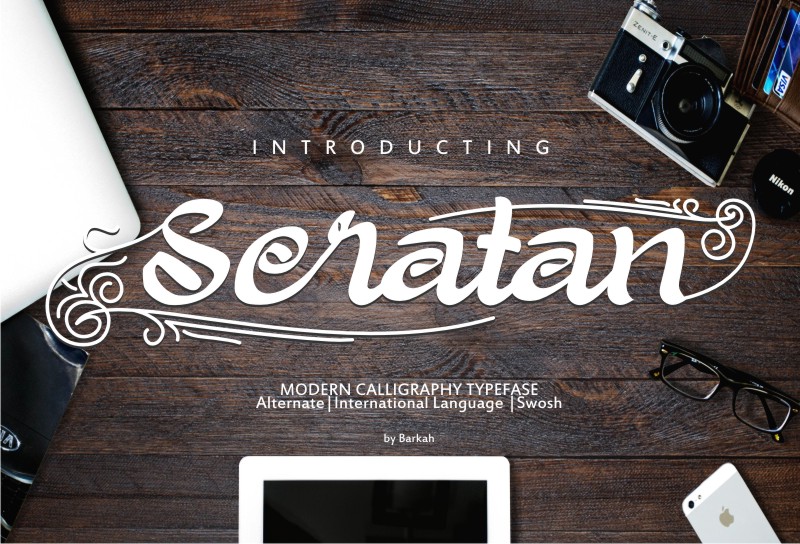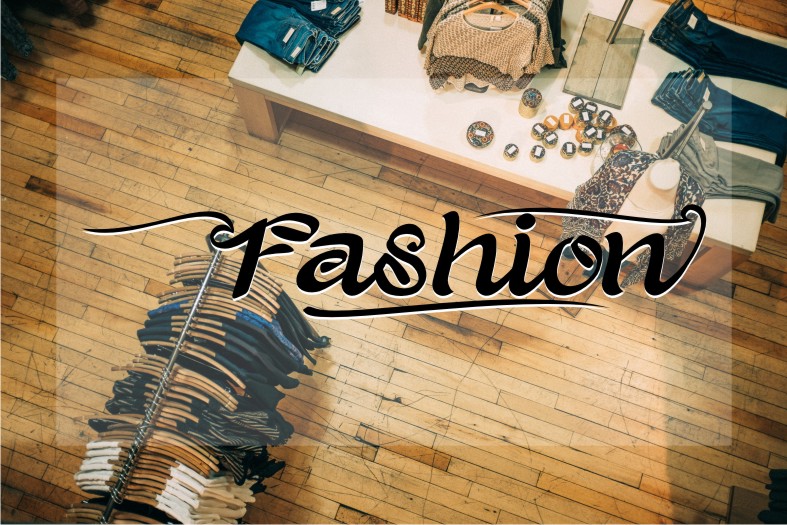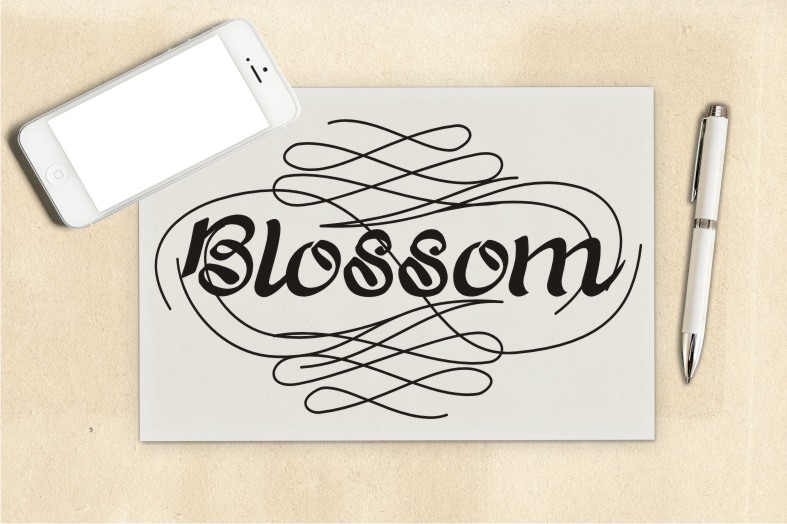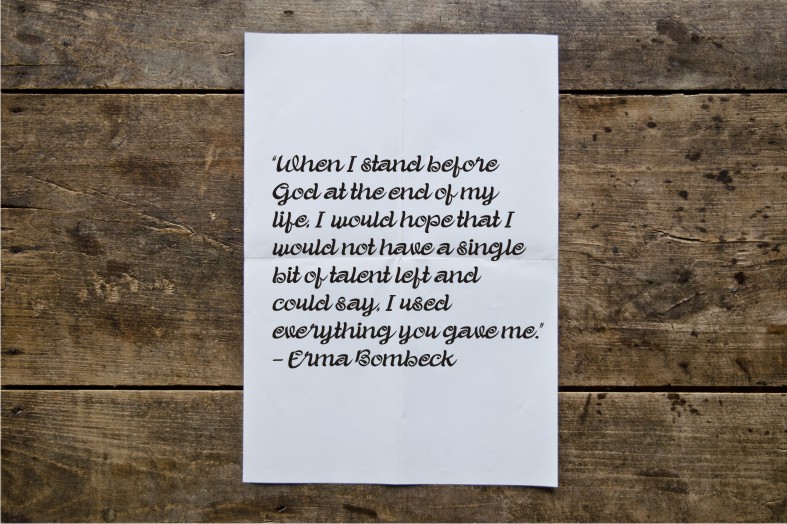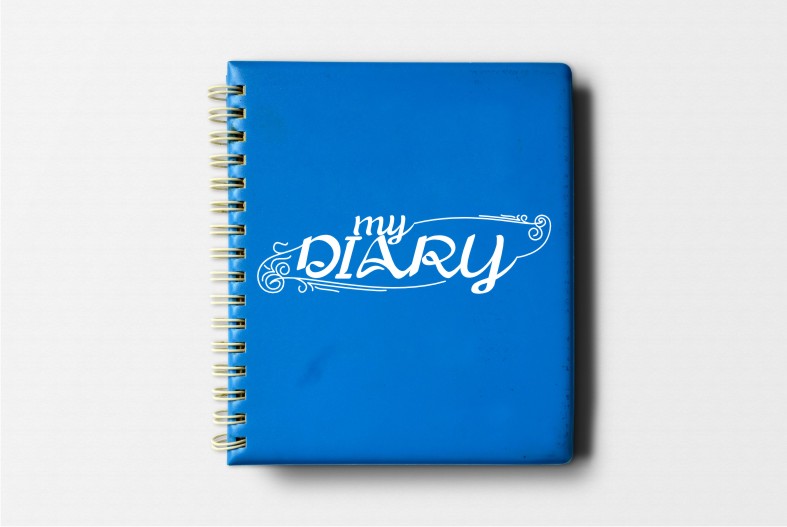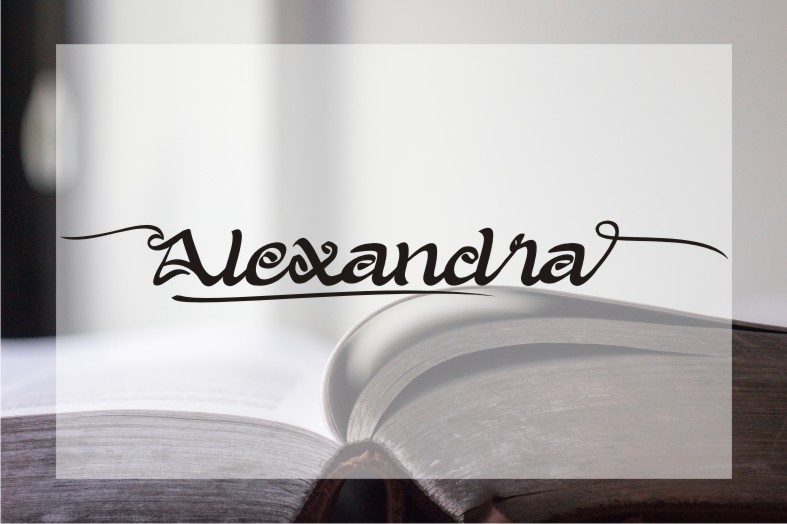
Seratan Font
About Seratan Font
Seratan is a funky yet beautiful script font, perfect for a wide range of display uses and invitationals. This font has a good weight, and doesn’t take itself too seriously so it’s a great typographic option for both fun and romantic designs.